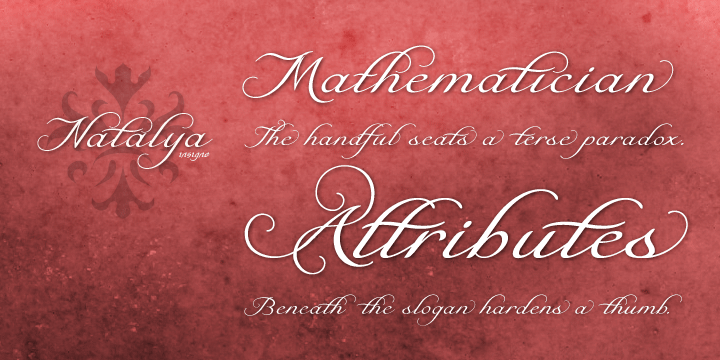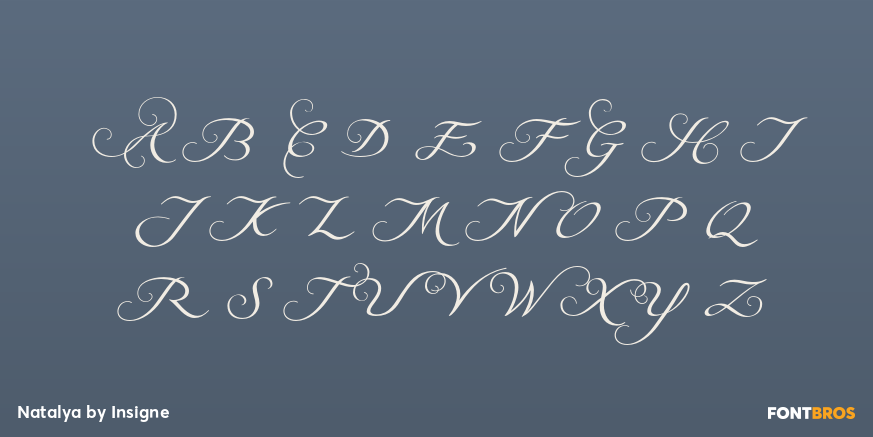
Natalya
Font Family by Insigne
Buy NowNatalya is a flashy and rhythmic script. The script has more space between characters than most for better legibility, and the basis point for the ornate swirls is the golden ratio. This makes for an especially harmonious typeface with timeless appeal.
The typeface includes three alternates with variations of the ascenders and descenders. All three fonts include OpenType ligatures, oldstyle figures and ending swashes for an even more elaborate appearance.